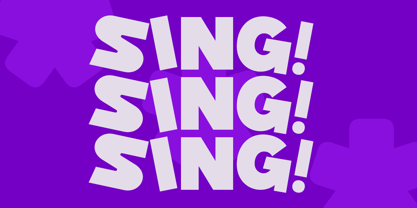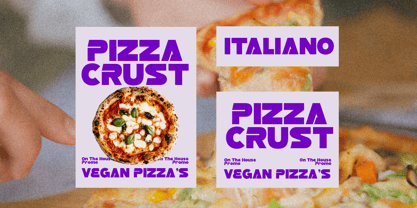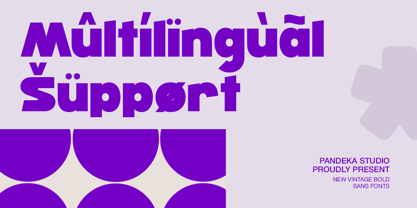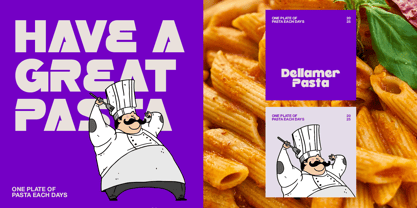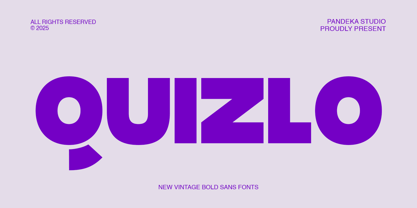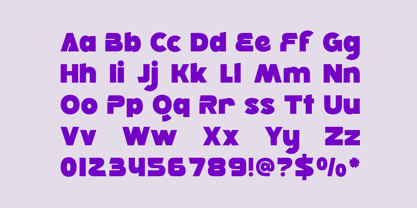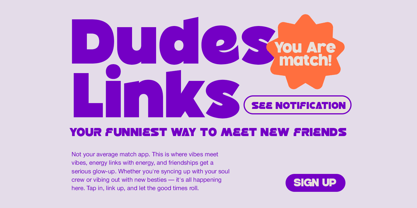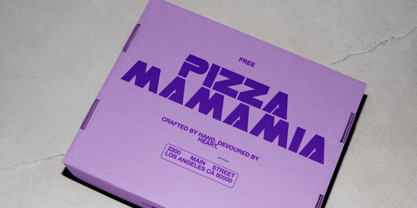
Quizlo
by Pandeka Studio
The Quizlo Font Family was designed by Sagara Nararya and published by Pandeka Studio. Quizlo contains 1 styles. More about this family
Quizlo is a bold and playful sans serif font designed to capture attention and bring fun energy to food-related branding. With its chunky letterforms and friendly style, Quizlo creates a deliciously bold visual impact that’s perfect for the culinary world.
Great for restaurant logos, menus, packaging, food products, social media, and advertising, Quizlo helps brands communicate a sense of flavor, joy, and personality. With a single Regular style, it’s simple, versatile, and highly effective for both print and digital projects.
Spice up your food branding with Quizlo — the font that makes every design look fresh, tasty, and irresistible.